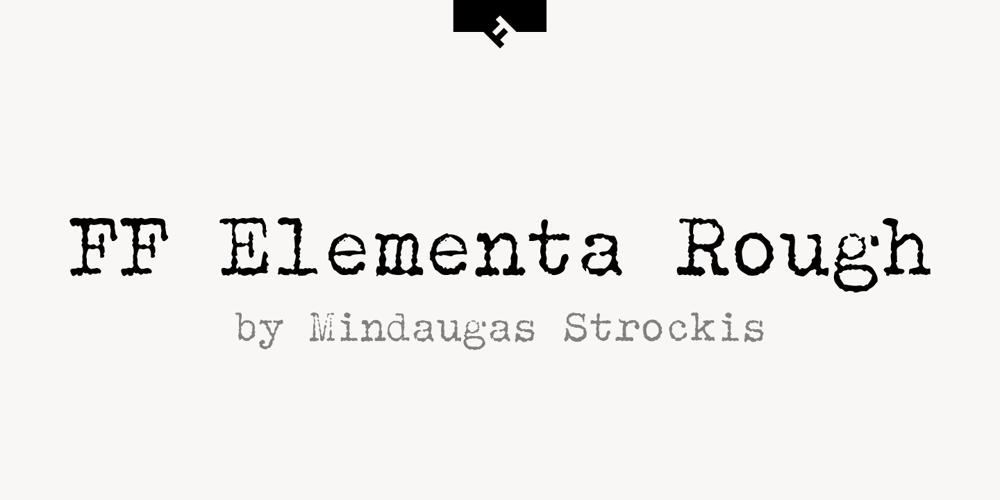
FF Elementa Rough Font Family was designed by Mindaugas Strockis and published by FontFont. FF Elementa Rough contains 2 styles and family package options. Lithuanian type designer Mindaugas Strockis created this display FontFont in 2002. The family contains 2 weights: Regular and Bold and is ideally suited for advertising and packaging, film and tv as well as software and gaming. FF Elementa Rough provides advanced typographical support with features such as alternate characters, case-sensitive forms, and stylistic alternates. It comes with tabular lining figures. This FontFont is a member of the FF Elementa super family, which also includes FF Elementa.